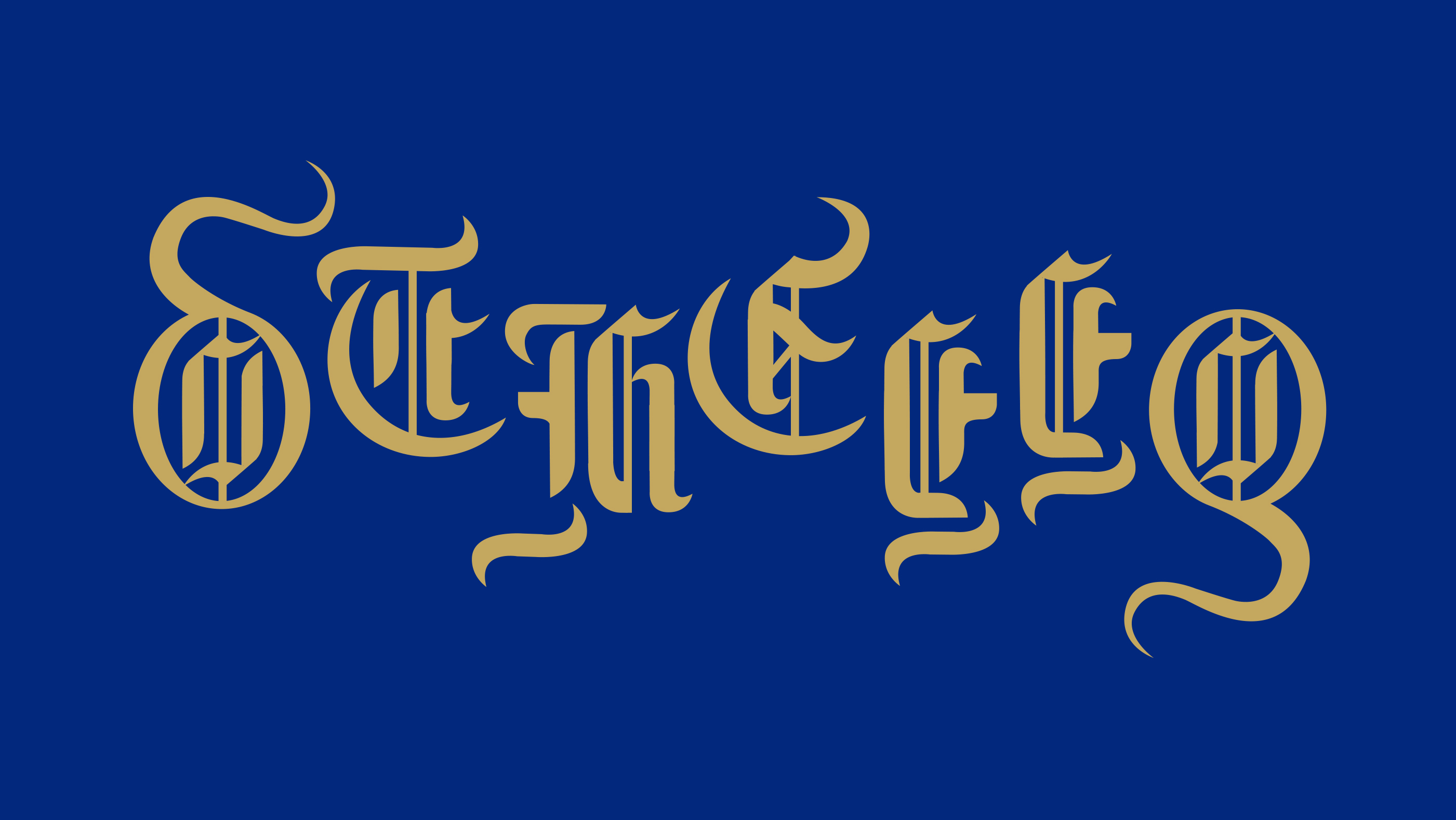
Othello
Classic lettering with a lowercase letter hidden inside a capital. The design has a timeless, refined feel, while the detailed O adds a playful touch and enhances its royal character.